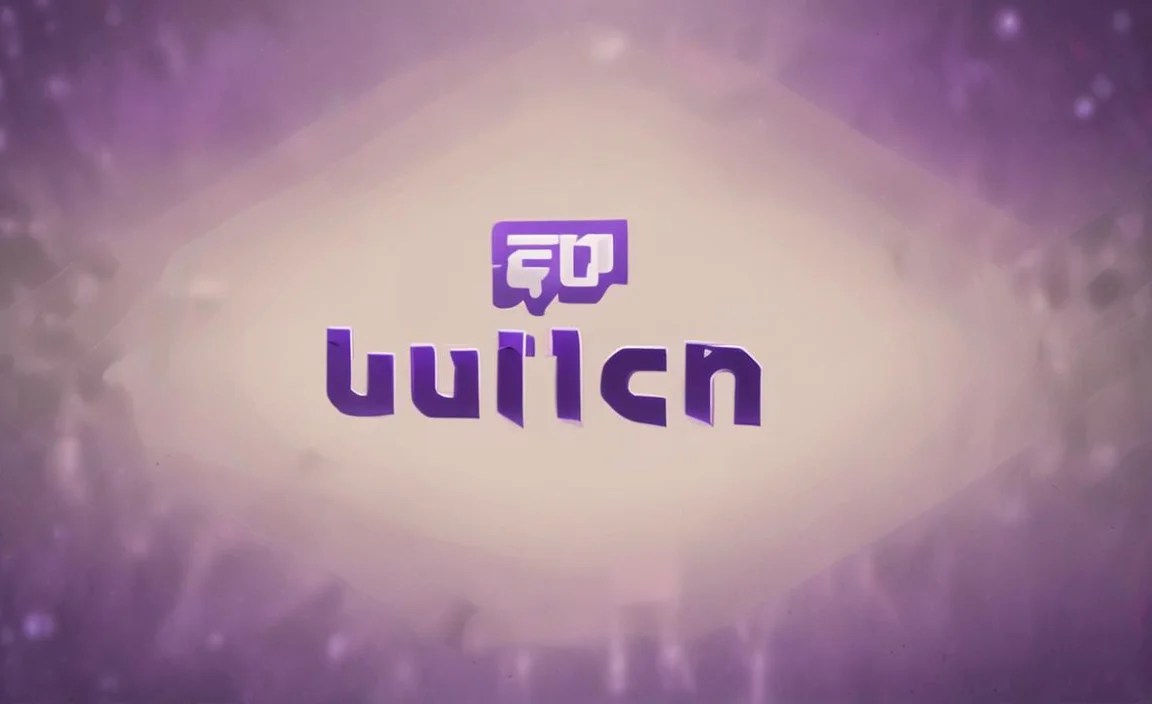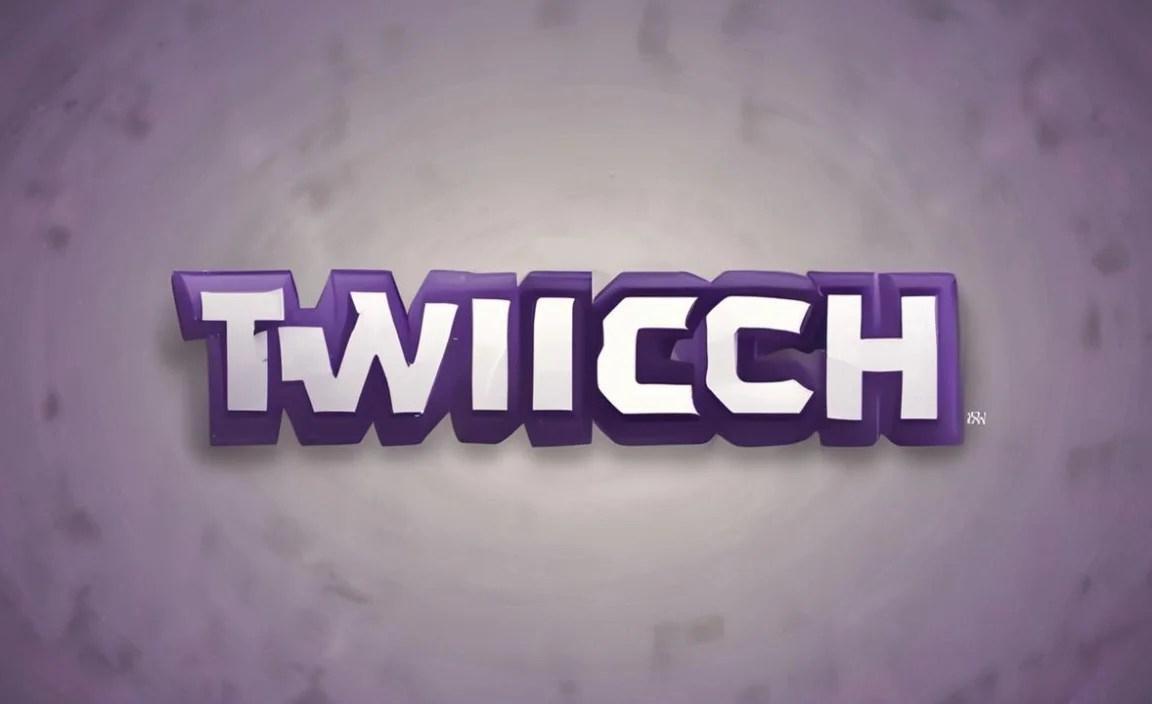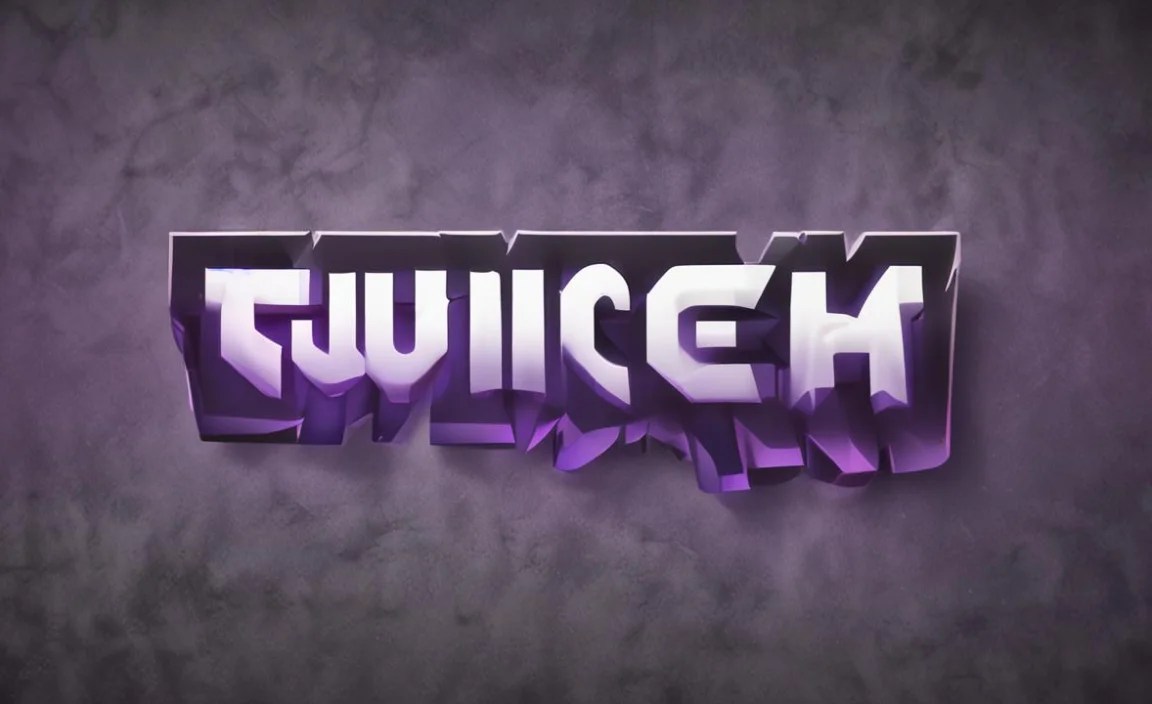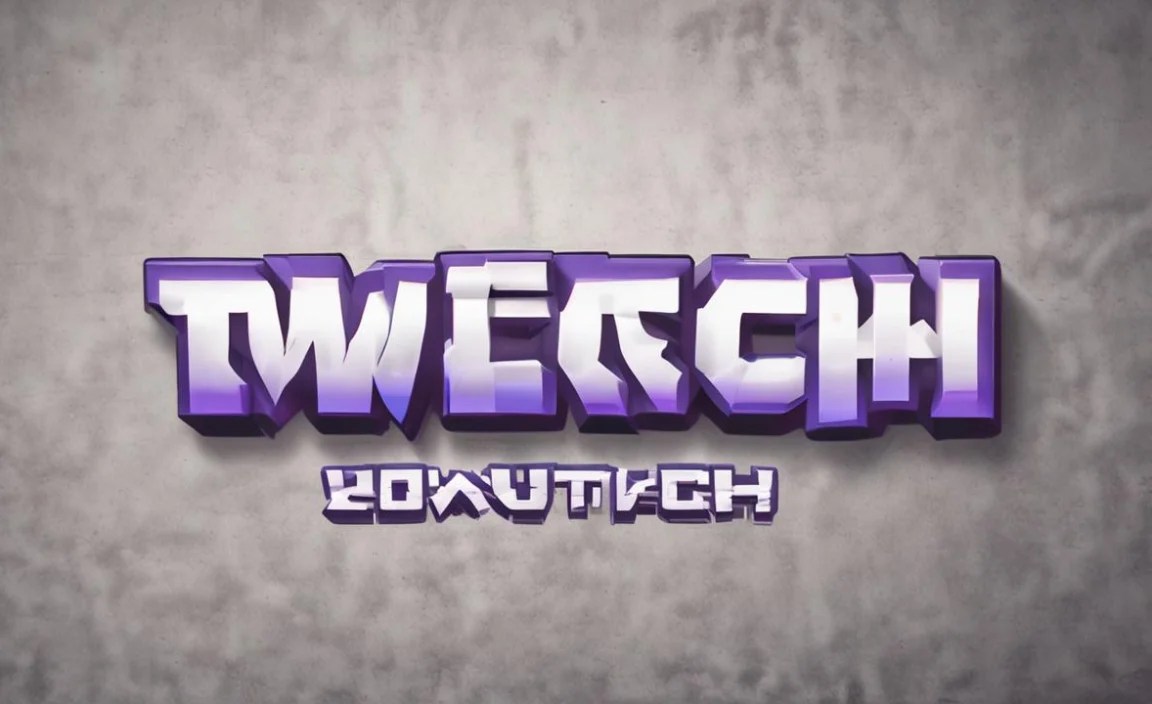
The Twitch logo font reflects the dynamic and engaging nature of Twitch, a leading social media platform for gamers, streamers, and content creators.
The logo is an essential part of Twitch’s identity, instantly recognizable due to its iconic design elements, modern font style, and unique color palette. Whether you’re a streamer or a designer, creating a good Twitch logo can enhance your personal brand and give your channel a professional, appealing look.
| Style | Sans Serif |
Twitch Logo Font Family Includes
The Texta Font Family offers a rich selection of styles, including:
- Twitch Logo Regular
How To Use The Twitch Logo Font
The Twitch logo font is a versatile typeface perfect for:
- Gaming banners and Twitch channel logos
- Video game icons and branding for Twitch streams
- Social media profiles and posts
- Custom Twitch logo designs for your Twitch interactive channel
With tools like the free Twitch logo maker, you can easily create a transparent Twitch logo in png files for seamless use across various platforms. The font’s design elements ensure a professional yet engaging look, which is critical in the video game and streaming industry.
Customizing Your Twitch Logo
A great logo for Twitch should combine the right color palette, font style, and design choices to reflect your brand’s personality. Whether you want a brand-new logo or simply update your existing Twitch profile, using the Twitch logo maker allows you to craft something unique.
Key Features Of The Twitch Logo Font:
- Bold and dynamic sans-serif design
- Modern aesthetics for the gaming world
- Ideal for gaming banners and Twitch logos
- Offers versatility for social media profiles and branding
- Supports custom logo creation with various templates and color options
Similar Fonts And Pairing Options
If you’re looking for fonts that complement the Twitch font, consider these popular choices:
You can pair the Twitch font with lighter typefaces like Raleway or Alegreya Sans for a balanced, professional design.
4.What Makes A Good Twitch Logo?
A good Twitch logo combines the right font style, color palette, and design elements to create a memorable visual identity.
5.Can I Customize My Twitch Logo’s Color?
Yes, customization options allow you to experiment with various colors to suit your Twitch channel.
6.What Are The Best Fonts To Pair With The Twitch Logo Font?
Fonts like Raleway, Oswald, and Montserrat pair well with the Twitch logo font.